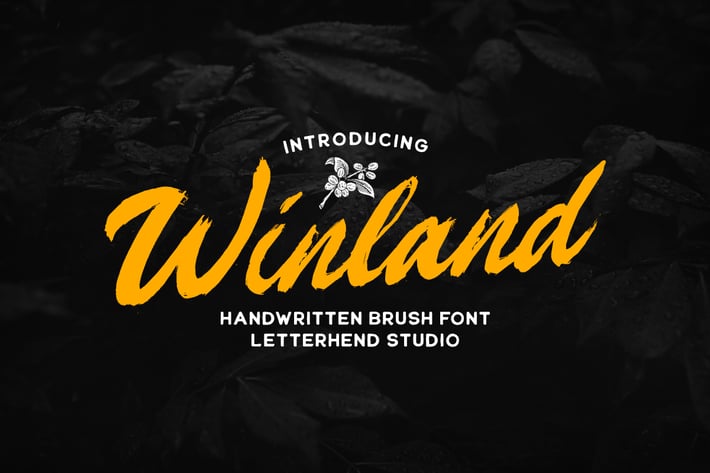
Winland - Brush Font
Introducing, Winland. This font is carefully crafted by handwritten brush to get the feels of natural brush. you can use this font for branding, packaging, quotes, headline, etc
+ uppercase & lowercase (alternates)
+ numbers and punctuation
+ multilingual